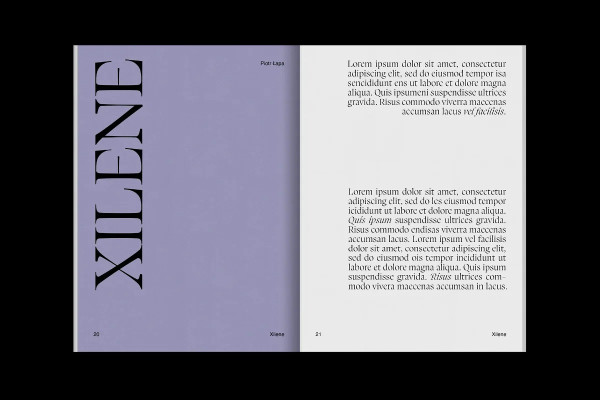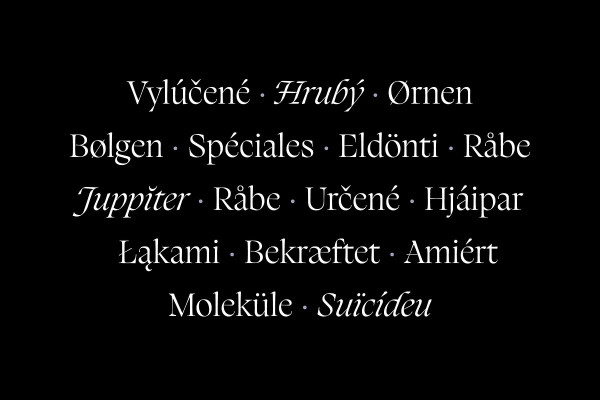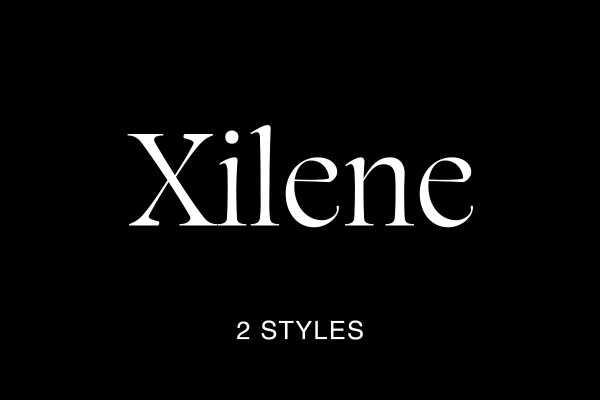
Xilene Font
Xilene Font is an elegant, display, serif typeface inspired by 20th century calligraphy and transitional typefaces. The Roman style is paired with classic and dynamic Italics. Xilene Font has a quiet big x-height value, modern proportions, sharp terminals and an extreme stroke contrast with a diagonal stress. The letterforms are elegant and have beautiful, polished details. Xilene is a great choice for fashion projects, headlines, titles, posters, packagings, covers and logotypes but can be also successfully used in some occasional texts.